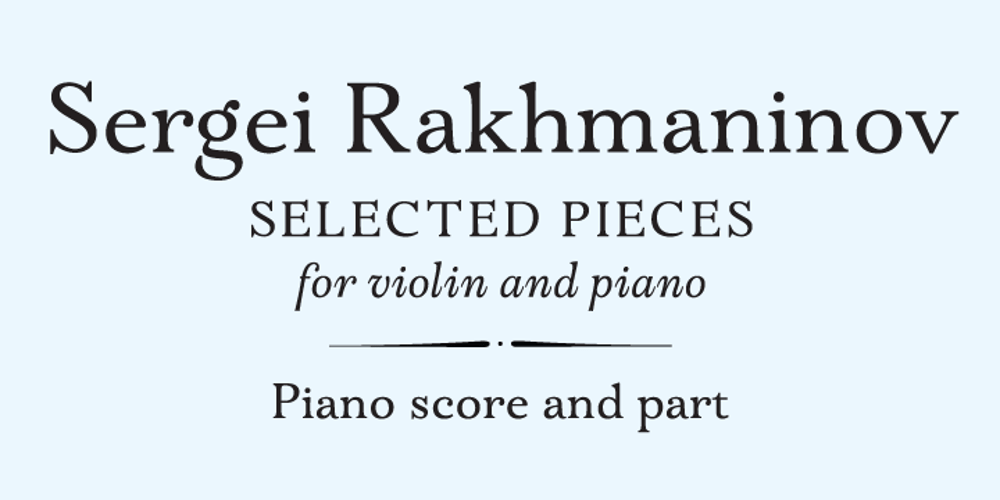
ALS Bingley Font Family was designed by Elena Novoselova and published by Art. Lebedev Studio. ALS Bingley contains 2 styles and family package options. Bingley is a beautifully old-fashioned, proper, and full of class body typeface. The British feel of this face comes from its inspirational source—a tombstone script from Oxford. The characters are squat and nearly square in proportions, even cursive comes with a pronounced breadth. Generous counters and pleasant stroke weight contrast ensure high legibility of any text set in Bingley. Pronounced serifs and drop-shaped terminals further enrich the experience.